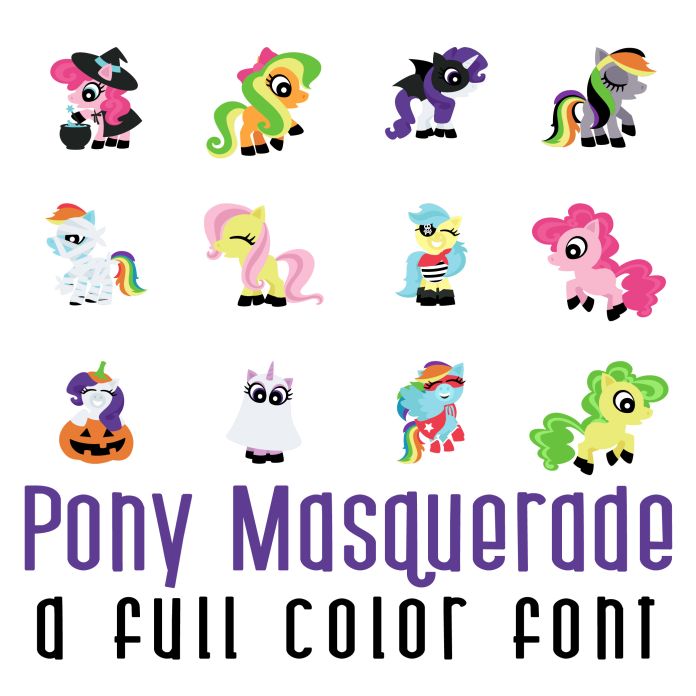
This fun full color font features 26 whimsical ponies dressed up and perfect for the holiday, gifts, cards, crafts, decor, parties, classrooms, planner stickers, scrap book pages and more!